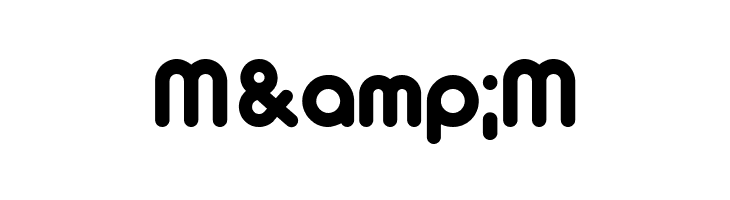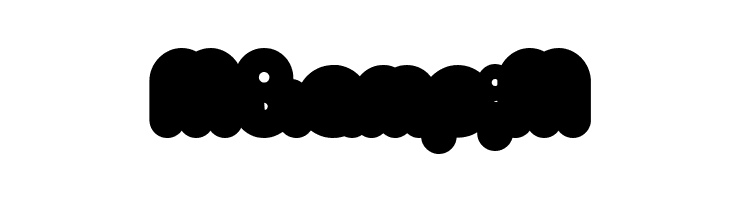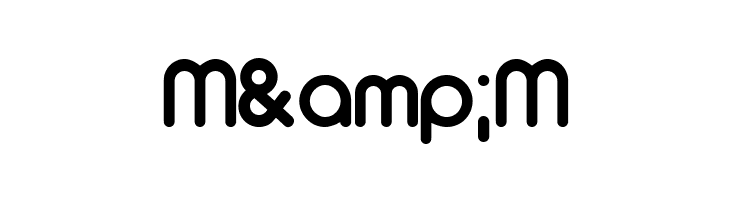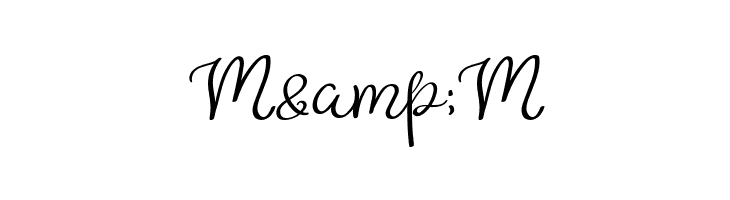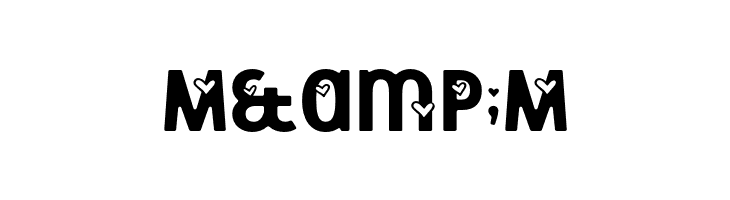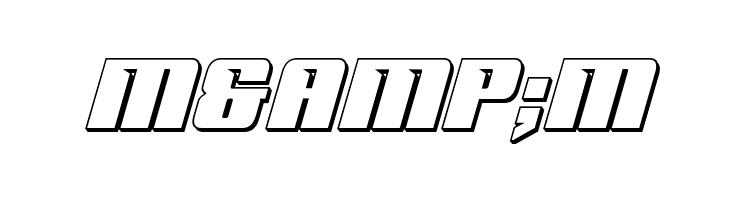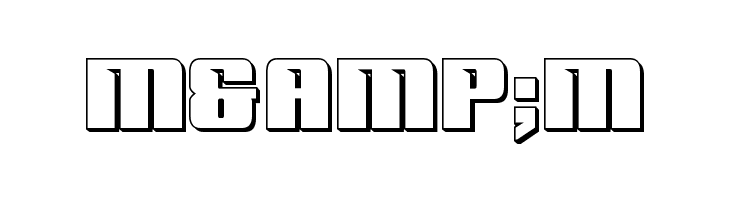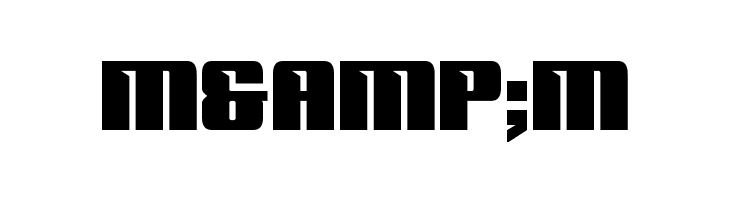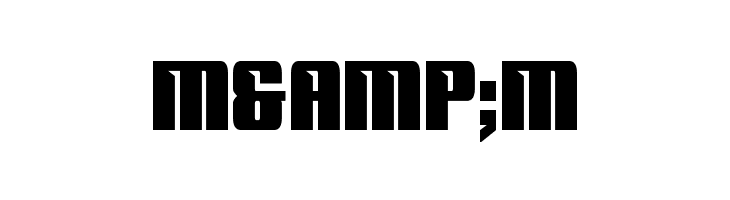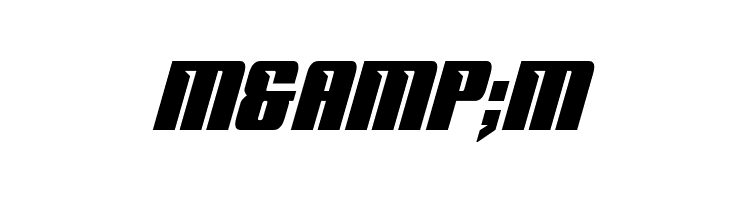
• [BichOGothic]
An ornate Gothic font with elaborate flourishes and bold, dramatic strokes.
• [First Grader]
A playful, hand-drawn font with a whimsical and informal style.
• [FREEWIND]
A playful, bold, hand-drawn font with thick outlines and a cartoonish style.
• [Moving_Carton]
A rugged, distressed font with a hand-drawn, vintage style.
• [OAKLAND] PERSONAL USE Regular
A bold, textured decorative font with a vintage, handcrafted feel.
• [skateboarding]
A bold, edgy font inspired by urban street art and skate culture.
• [smartphone]
A bold, sans-serif font with characters enclosed in smartphone-like frames.
• [star love]
A playful and romantic cursive script font with elegant, flowing strokes.
• [TOP_SECRET]
A bold, distressed stencil font with a vintage, industrial feel.
• [true love]
A playful handwritten font with a whimsical and casual style.
• [Viva La Fiesta]
A bold serif font with a classic, festive banner style.
• [z] Arista
A modern, bold font with rounded edges and a playful style.
• [z] Arista ExtraFilled
A bold, rounded, and heavily filled font with a modern and playful style.
• [z] Arista Light
A modern, rounded sans-serif font with a clean and minimalist style.
• [z] Prozak
A modern, geometric sans-serif font with a sleek, condensed design.
• [z] Prozak Bold